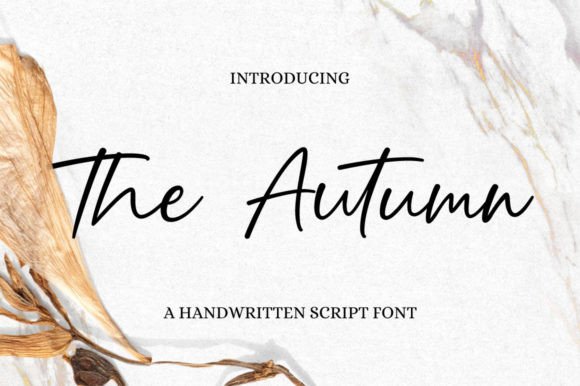
**Introducing The Autumn Font: A Script Font with Unparalleled Beauty and Grace**
In a world of ordinary fonts, The Autumn Font stands apart as a breathtaking masterpiece, crafted with meticulous attention to detail by the renowned Graphix Line Studio. This script font exudes elegance and timeless charm, characterized by its smooth, flowing curves and impeccable balance. Prepare to be mesmerized as The Autumn Font transforms your creative projects into works of art.
**Experience the Exquisite Charm of The Autumn Font**
With its graceful lines and delicate flourishes, The Autumn Font possesses an undeniable allure that captivates the senses. Its meticulously crafted characters dance across the page, evoking a sense of sophistication and refinement. Whether you're designing logos, creating invitations, or crafting social media posts, The Autumn Font adds an instant touch of elegance to any project.
**Perfect for Fashion Branding and Editorial Designs**
The Autumn Font's inherent beauty and versatility make it the perfect choice for fashion branding and editorial designs. Its timeless appeal adds a touch of luxury to fashion labels, logos, and marketing materials. The font's graceful curves and elegant flourishes lend themselves perfectly to creating captivating headlines, eye-catching posters, and stunning magazine layouts. Unleash your creativity and let The Autumn Font elevate your designs to new heights.
**Elevate Your Designs with The Autumn Font**
The Autumn Font is more than just a font; it's an investment in your creative potential. Its timeless beauty and versatility make it an essential tool for any designer looking to create projects that leave a lasting impression. Whether you're a seasoned professional or just starting out, The Autumn Font will empower you to produce stunning designs that captivate and inspire.